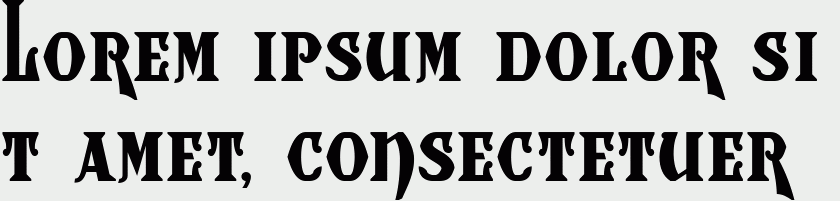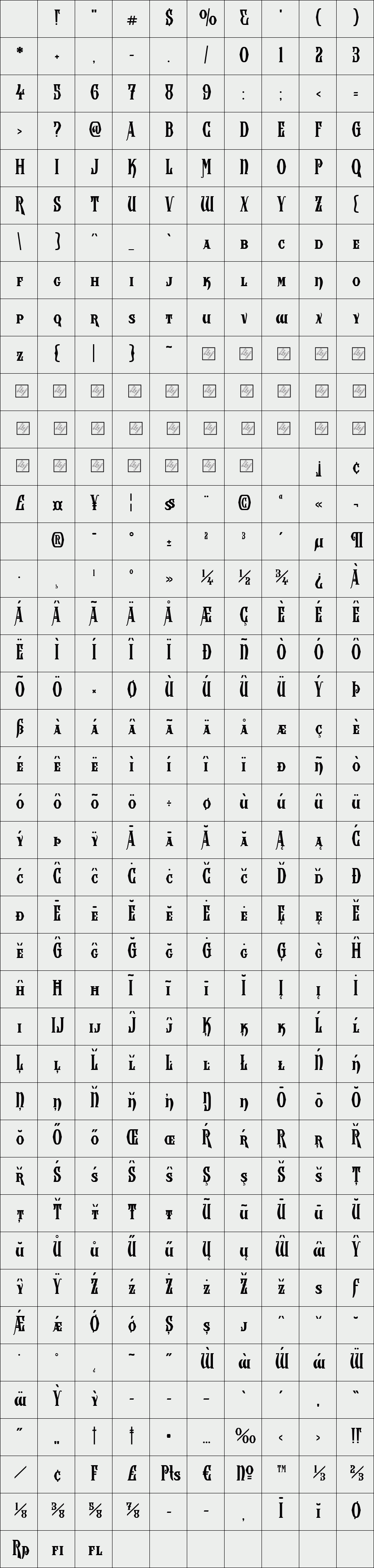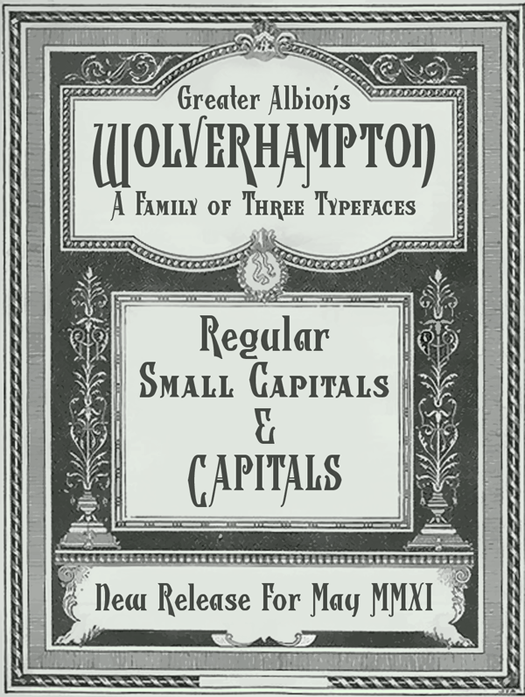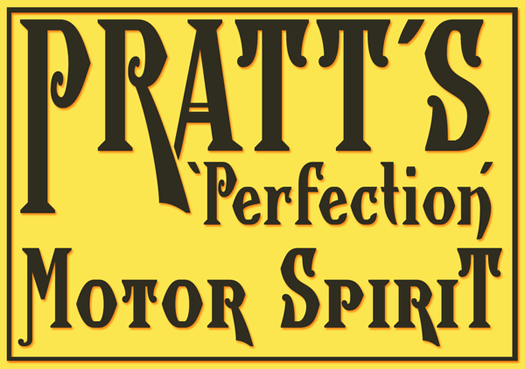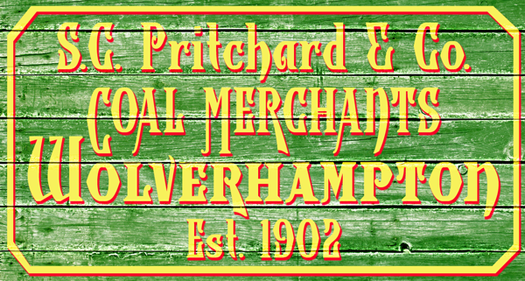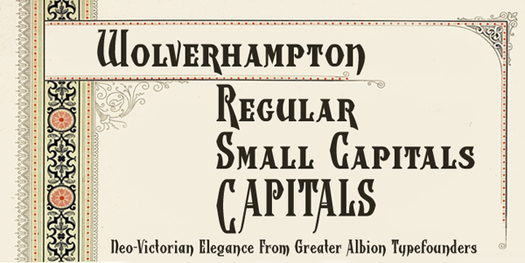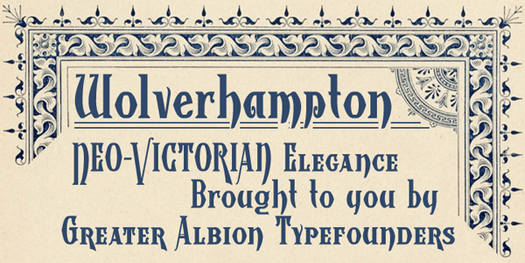
Wolverhampton
/ Wolverhampton SmallCaps
Wolverhampton is a new Neo-Victorian face from Greater Albion Typefounders. It's something of an example of starting with a small idea and running with it. This family of three typefaces (Regular, Small Capitals and Capitals) was inspired by a line of lettering seen on a late 19th Century enamel advertisement made by Chromo of Wolverhampton (hence the family name). The family grew, topsy-like, from a recreation of these initial fifteen capital letterforms to the three complete typefaces offered here. The three typefaces are ideal for advertising and poster work with a Victorian, Edwardian, or 'Steam-punk' theme. They would also be eminently suitable for signage inspired by the same eras or (as we've seen a number of our other typeface families prove very popular) for book covers of period related novels and historical works